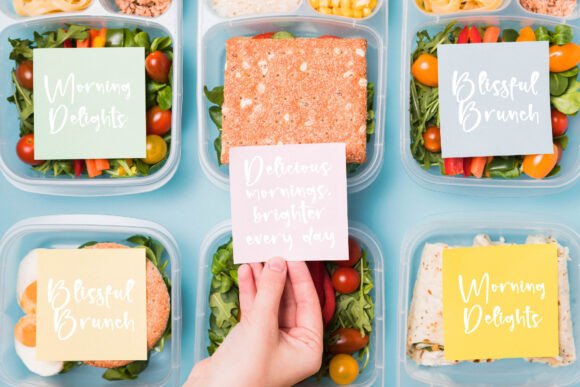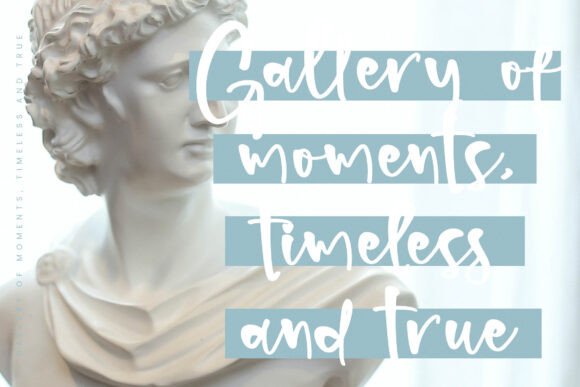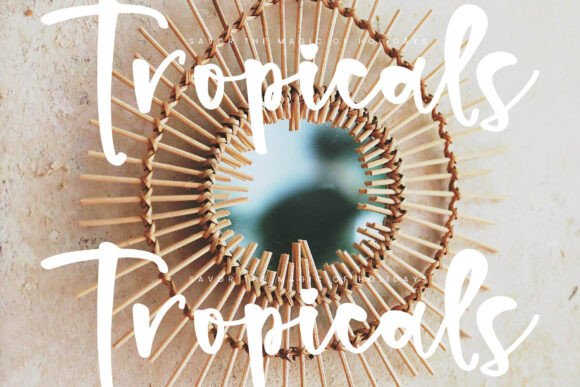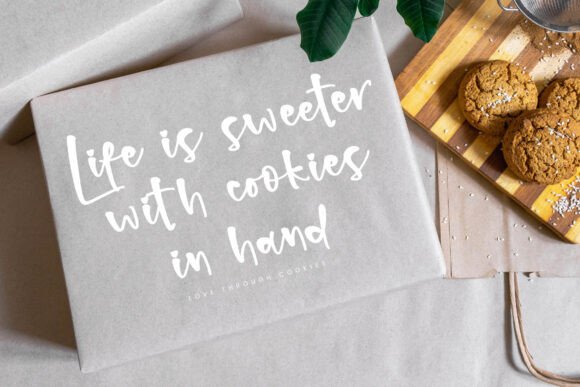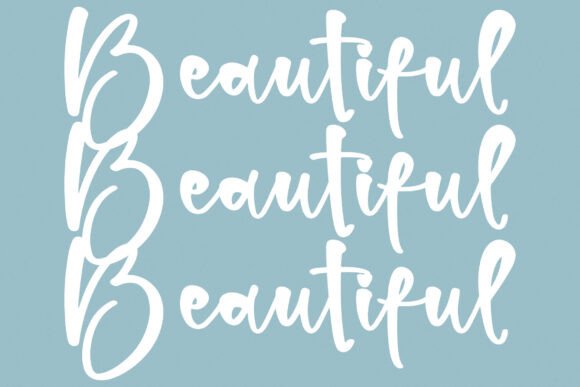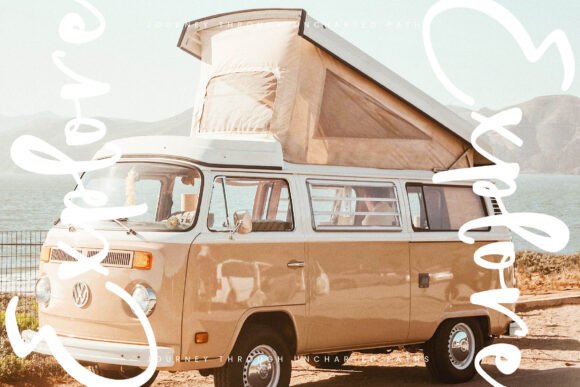
Spread the Joy of the Holiday Season with Blissful Christmas Font
Ah, the holiday season is upon us, and as designers, crafters, and creative hobbyists, we’re probably all scrambling to create some festive and fun designs. I still remember the year I was working on a Christmas card project for a client, and I just couldn’t find the perfect font to capture the cheer and warmth of the season. The client wanted something that felt both playful and elegant, but my usual go-to fonts just weren’t cutting it. That’s when I stumbled upon the Blissful Christmas font, and let me tell you, it was a game-changer! 🎄
A Personal Review of Blissful Christmas Font
I’m excited to share my honest review of this adorable font, and I hope it helps you decide if it’s the right fit for your holiday projects.
• ✨ The smooth, playful style that adds warmth and personality to any seasonal design
• ✅ The stylish ligatures and swashes that give it a cheerful and festive feel
• 🎉 The versatility of the font, which makes it perfect for a wide range of projects, from Christmas cards to holiday decor
• 👍 The easy-to-read and clear font that works well for both digital and print designs
While I absolutely adore Blissful Christmas, there are a few minor things to keep in mind:
• ⚠️ Some of the swashes and ligatures can be a bit finicky to work with, especially if you’re new to using OpenType features.
• 🤔 The font might not be the best choice for very formal or traditional designs, as it has a distinctly playful and whimsical feel.
The Story Behind Blissful Christmas
Blissful Christmas was designed with the holiday season in mind – to bring a touch of joy and whimsy to your designs. The font’s creator, a talented type designer, wanted to craft a font that would evoke the feeling of snowflakes gently falling, hot cocoa in your hands, and the warmth of twinkling lights. And I think they succeeded beautifully! ❤️
Q: What makes Blissful Christmas font so special?
A: Blissful Christmas font is special because of its unique blend of stylish ligatures, swashes, and a smooth, playful style that adds warmth and personality to any seasonal design.
Q: Is Blissful Christmas suitable for beginners?
A: Absolutely! Blissful Christmas is a user-friendly font that’s easy to work with, even for those new to design. The font’s clear and readable style makes it perfect for a wide range of projects.